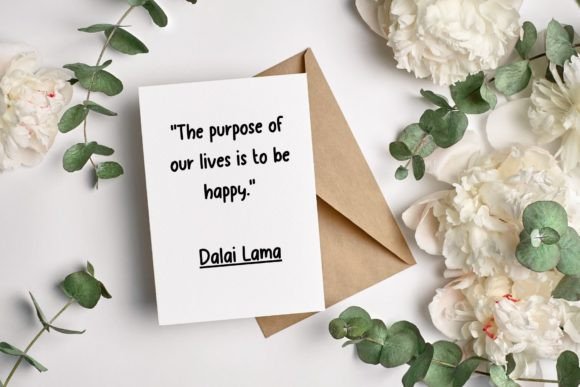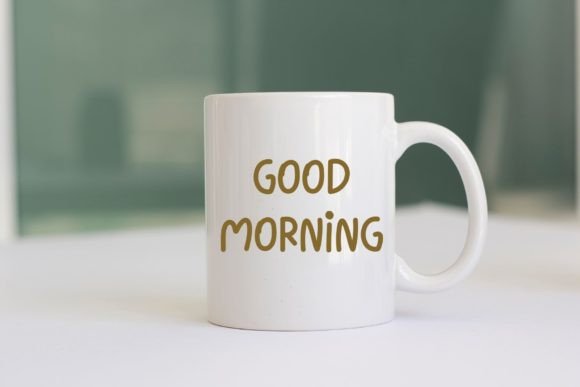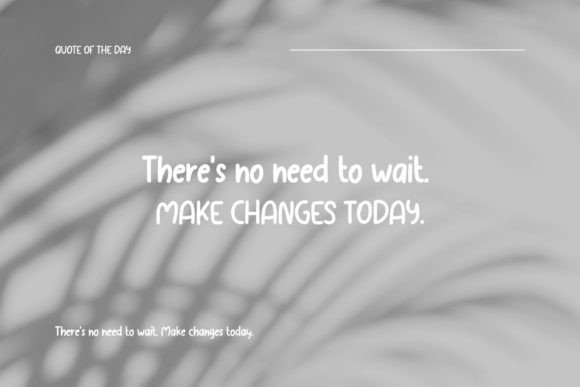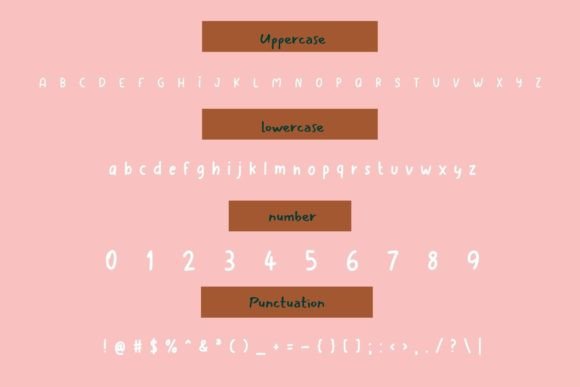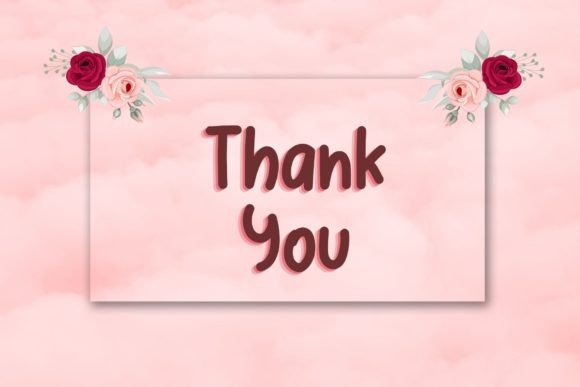
That’s where the Aurelia Font comes in – a charming, handwritten font that captures the essence of playfulness and authenticity. Whether you’re crafting a blog post, designing a logo, or creating a set of invitations, Aurelia Font is the perfect addition to your design. Its versatility and charm make it a valuable tool for designers, allowing them to add a personal touch to any project.
Aurelia Font Key Features
- Font Family: Aurelia Font is a modern sans-serif font family, designed to be highly legible and versatile.
- Character Count: The Aurelia Font family includes a wide range of characters, including Latin, Cyrillic, and Greek alphabets, with over 1,000 glyphs per font weight.
- Font Sizes: Aurelia Font is available in 7 font weights, ranging from Light to Black, allowing for a high degree of flexibility and customization.
- Unique Characteristics: Aurelia Font features a unique blend of geometric and organic shapes, resulting in a clean and modern aesthetic that is both sophisticated and approachable.
Aurelia Font Review
As a designer, I had the chance to work with the Aurelia Font, and I must say it’s a beautiful addition to any design project. Here are some of its strengths:
- ✨ Elegant and sophisticated look that’s perfect for luxury brands and high-end designs
- ✨ Large character set, including many international characters, making it versatile and easy to use
- ✨ Excellent legibility, even at small font sizes, ensuring your text is always readable
However, like any font, Aurelia has its limitations:
- ⚠️ May not be the best choice for informal or playful designs, as its elegance can come across as formal or stuffy
- ⚠️ Some users may find it too ornate or fussy, which can be distracting in certain contexts
Overall, I think Aurelia is a solid choice for designers looking for a sophisticated and elegant font. While it may not be the best fit for every project, it’s a great addition to any designer’s toolkit. With its beautiful look and excellent legibility, it’s sure to elevate any design to the next level.
Tip: Use the Aurelia Font for headings and titles to add a touch of elegance to your designs.
Tip: Use the Aurelia Font for custom typography and create unique designs that stand out.
Tip: Use the Aurelia Font for headings and titles to add a touch of sophistication to your presentations and documents.
The Aurelia Font is ideal for:
- Brand identity and logos
- Editorial and magazine designs
Remember to use the Aurelia Font in conjunction with other design elements to